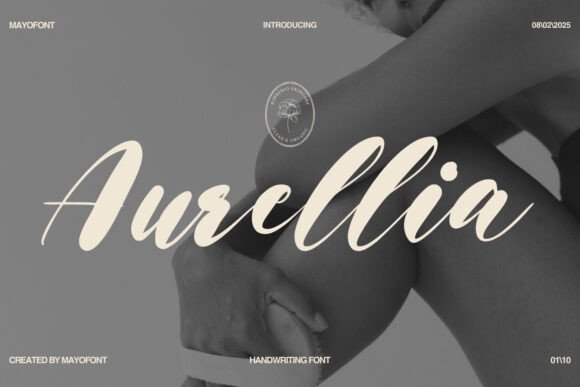
I still remember the countless hours I spent scrolling through font libraries, searching for the perfect script font for a client’s wedding invitation project. The client wanted something elegant, sophisticated, and unique, but I was struggling to find a font that checked all the boxes. That’s when I stumbled upon Aurellia Handwritten, a beautiful script font that brought a touch of refinement and luxury to my design. In this article, I’ll share my experience with Aurellia Font, its features, and how to make the most of it in your creative projects.
Aurellia Handwritten: A Sophisticated Script Font
Aurellia Handwritten is a sophisticated and graceful script font that brings a natural, elegant touch to your designs. Its smooth curves and flowing strokes create a sense of refinement, making it perfect for branding, logos, wedding invitations, and other creative projects. Aurellia Handwritten exudes timeless charm and modern elegance, effortlessly enhancing any visual concept with its organic and luxurious style.
• ✨ Smooth curves and flowing strokes: Aurellia Handwritten’s elegant design makes it perfect for creating sophisticated and refined visual content.
• ✅ Timeless charm and modern elegance: This font effortlessly blends classic and modern styles, making it suitable for a wide range of creative projects.
• 💫 OpenType features and glyphs: Aurellia Handwritten comes with a range of OpenType features and glyphs, allowing for endless creative possibilities.
While Aurellia Handwritten is an exceptional font, there are a few minor quirks to be aware of:
• 🤔 Limited use in body text: Due to its elegant and cursive nature, Aurellia Handwritten may not be the best choice for body text. It’s better suited for headings, titles, and short paragraphs.
• ⚠️ Kerning issues: As with any script font, kerning can be a bit tricky. Make sure to adjust the kerning to achieve the best results.
The Designer Inspiration Behind Aurellia Handwritten
Aurellia Handwritten was designed with the goal of creating a sophisticated and elegant script font that would bring a touch of refinement to creative projects. The designer drew inspiration from classic calligraphy and modern typography, blending traditional techniques with contemporary style. The result is a font that exudes timeless charm and modern elegance.
Q: What is Aurellia Handwritten?
A: Aurellia Handwritten is a sophisticated and elegant script font designed for creative projects, including branding, logos, wedding invitations, and more.
Q: Is Aurellia Handwritten suitable for body text?
A: While Aurellia Handwritten is an exceptional font, it’s better suited for headings, titles, and short paragraphs. It’s not recommended for body text due to its elegant and cursive nature.
Q: Does Aurellia Handwritten come with OpenType features and glyphs?
A: Yes, Aurellia Handwritten comes with a range of OpenType features and glyphs, allowing for endless creative possibilities.